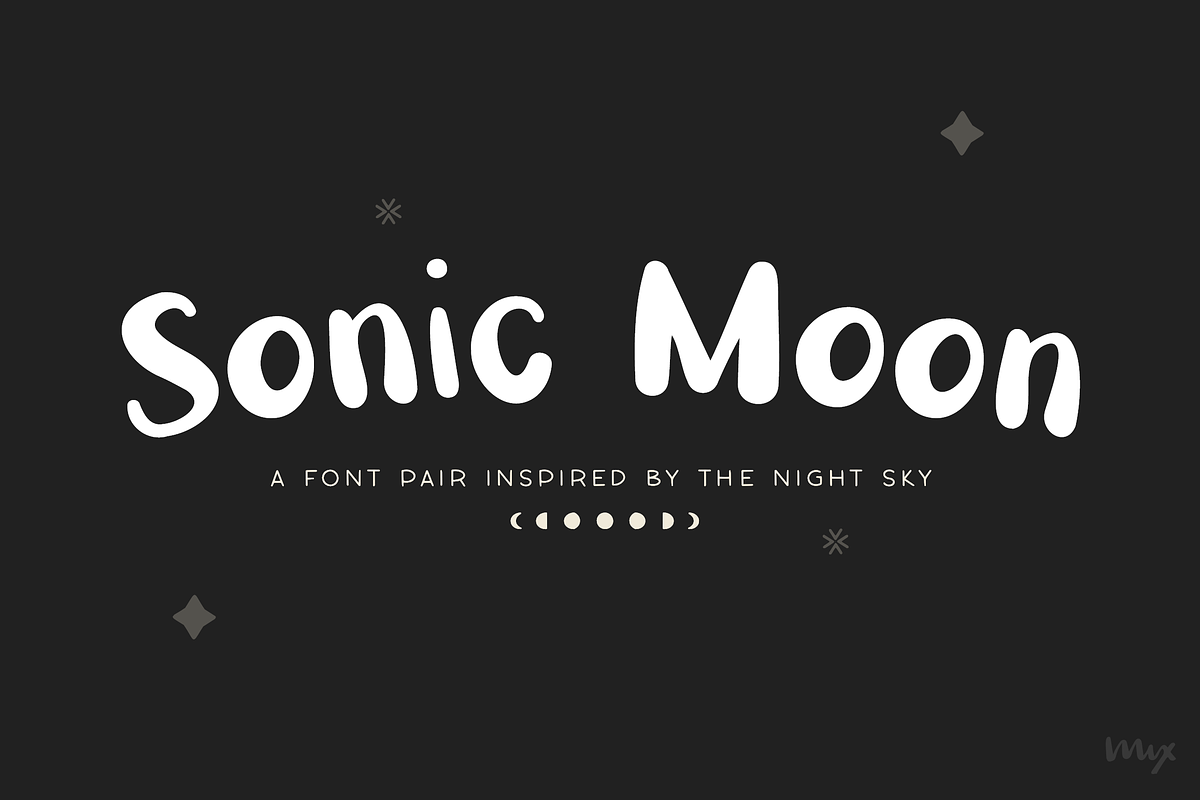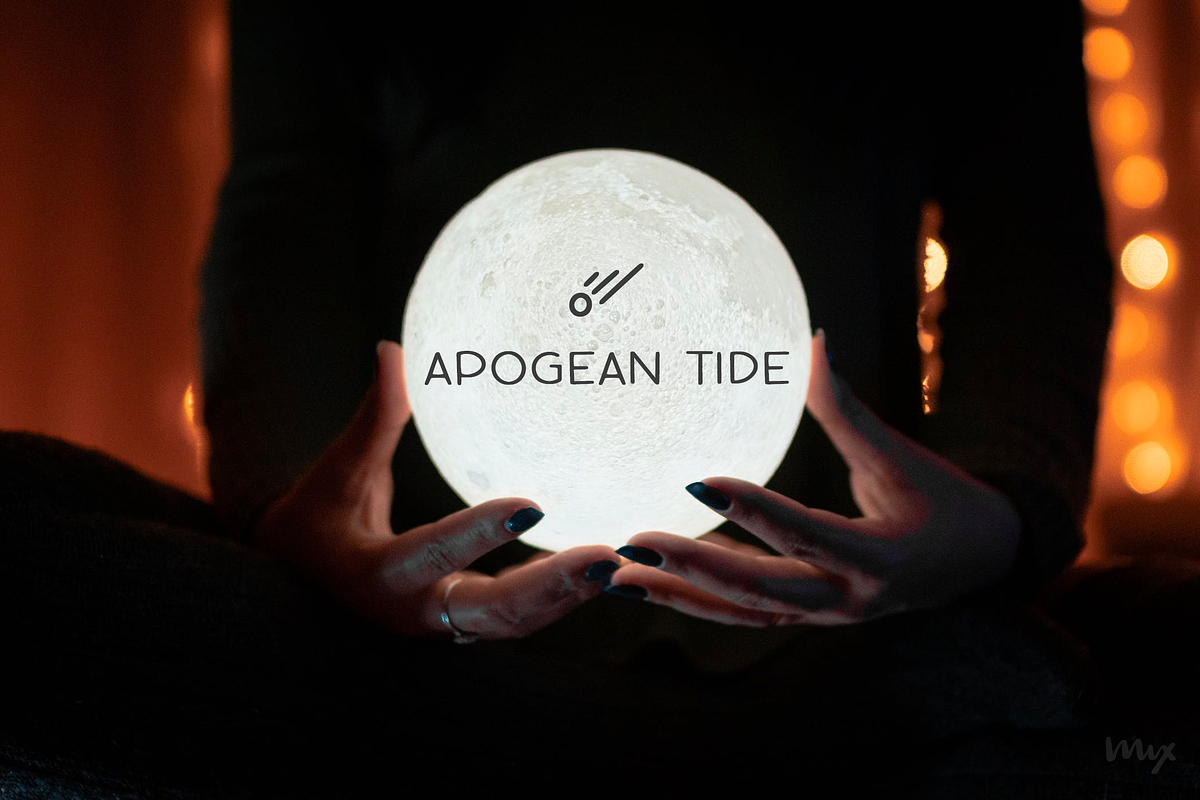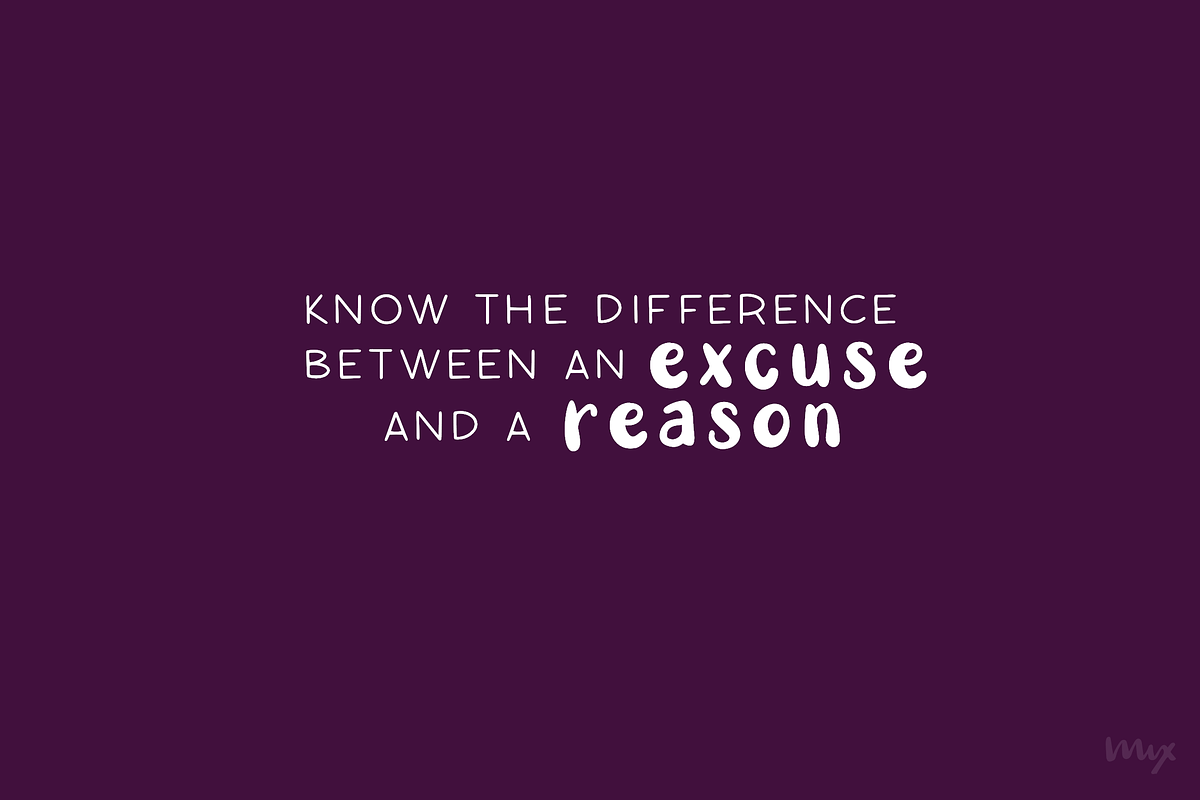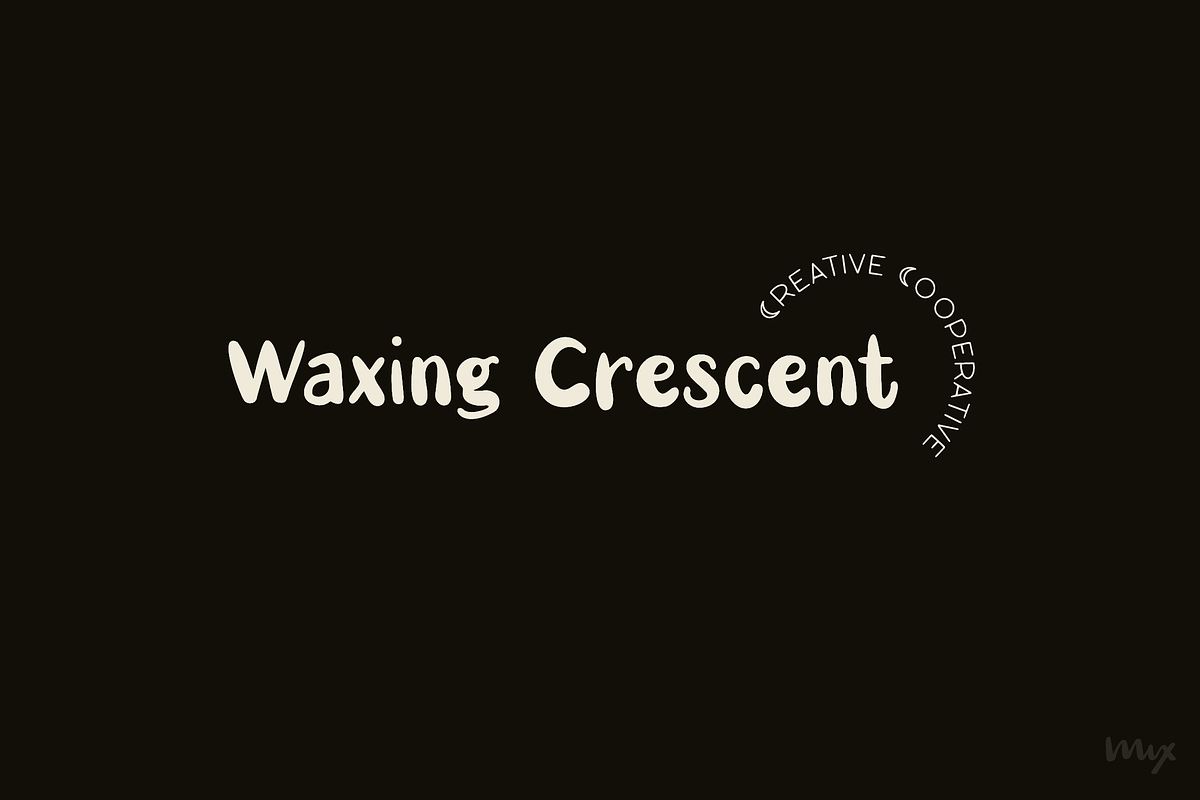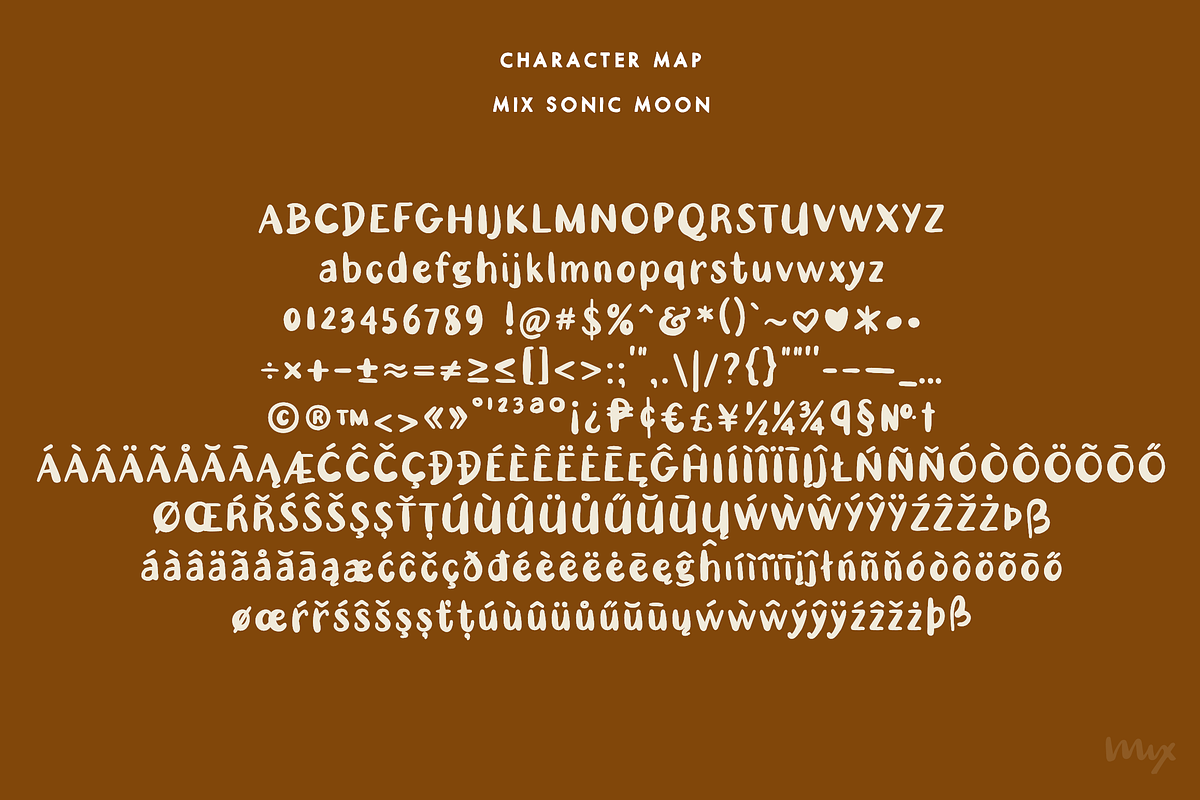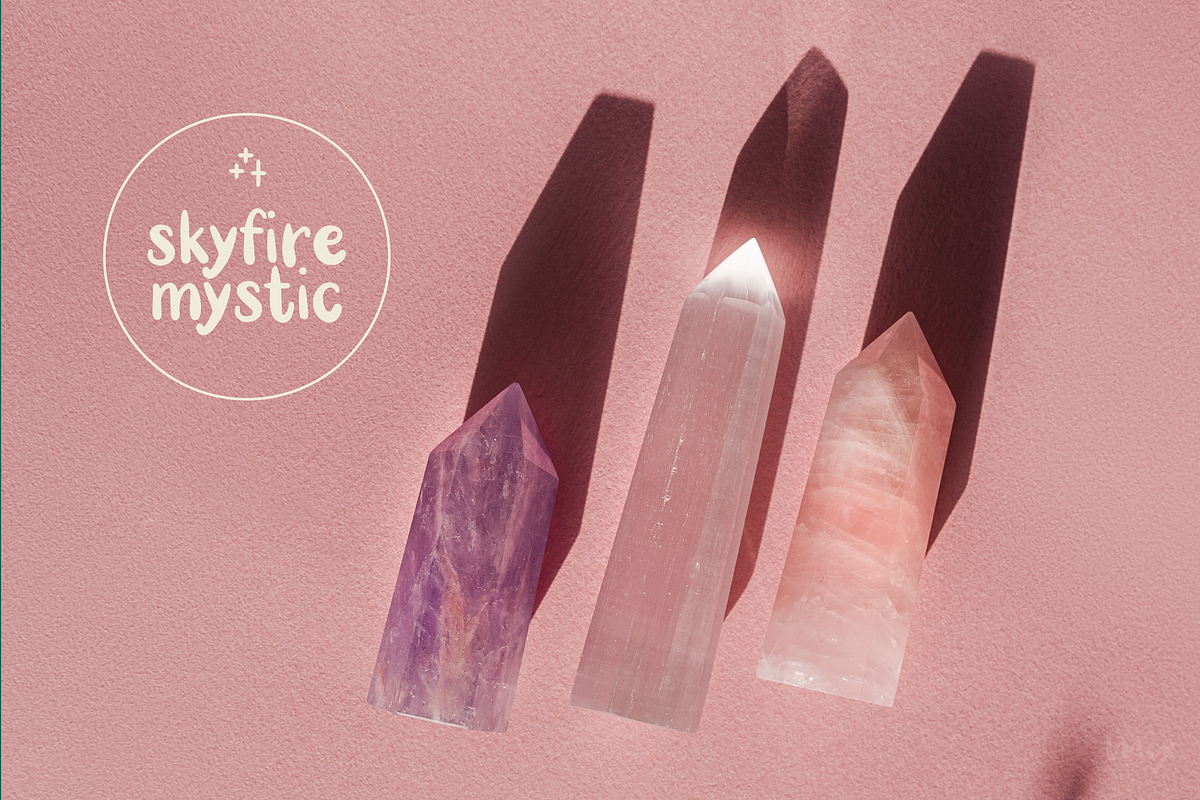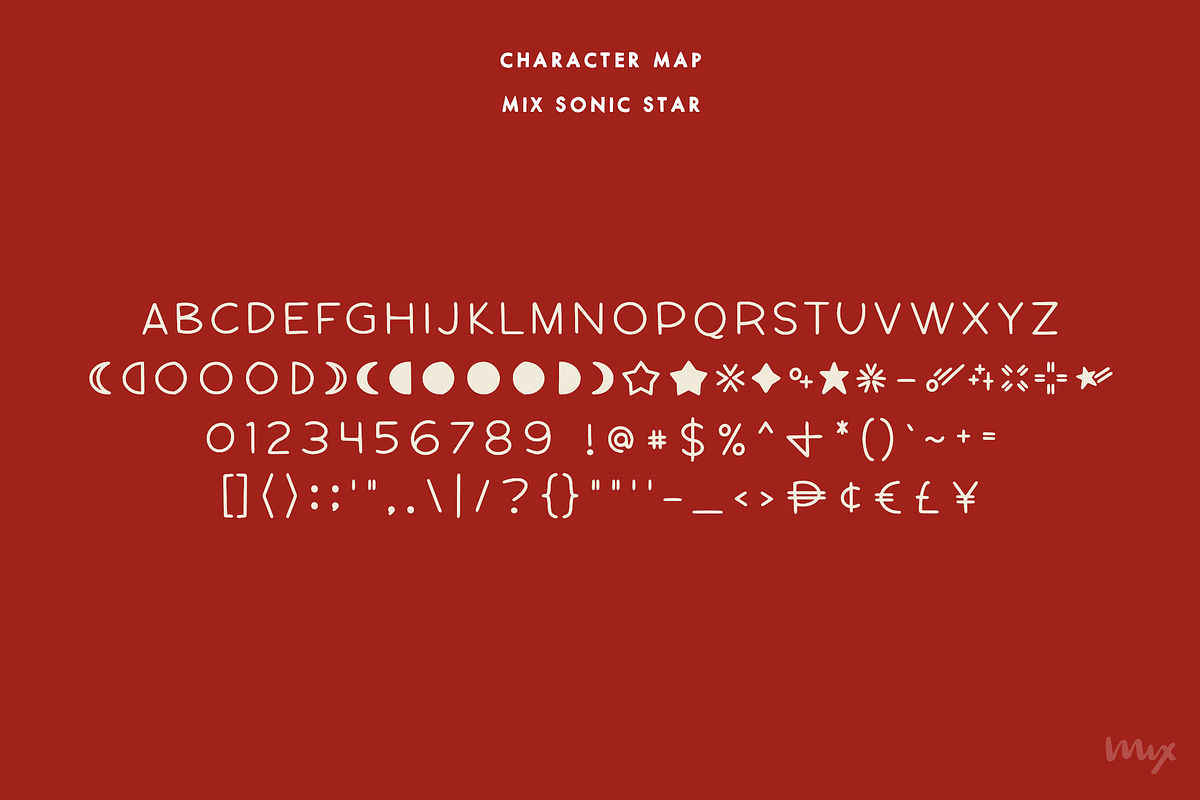
Sonic Moon — A Halloween Font Duo
This is a font pair inspired by the night sky. You get a round, bouncy and plump decorative san serif in MIX SONIC MOON and an all-uppercase and moon and stars dingbat hybrid in MIX SONIC STAR. The shapes of these glyphs capture the various phases of the moon, and how it lights up eerily lights up the night sky at each phase. MIX SONIC MOON and MIX SONIC STAR are great additions to your font collection. Make it a go-to font for all your projects of the mystic, astrology, magic, zodiac, elemental, celestial, witchcraft or divine variety. Use together, or separately, both font sets are sure to delight!
MIX SONIC MOON comes with the following glyphs:
MIX SONIC STAR comes with the following glyphs: